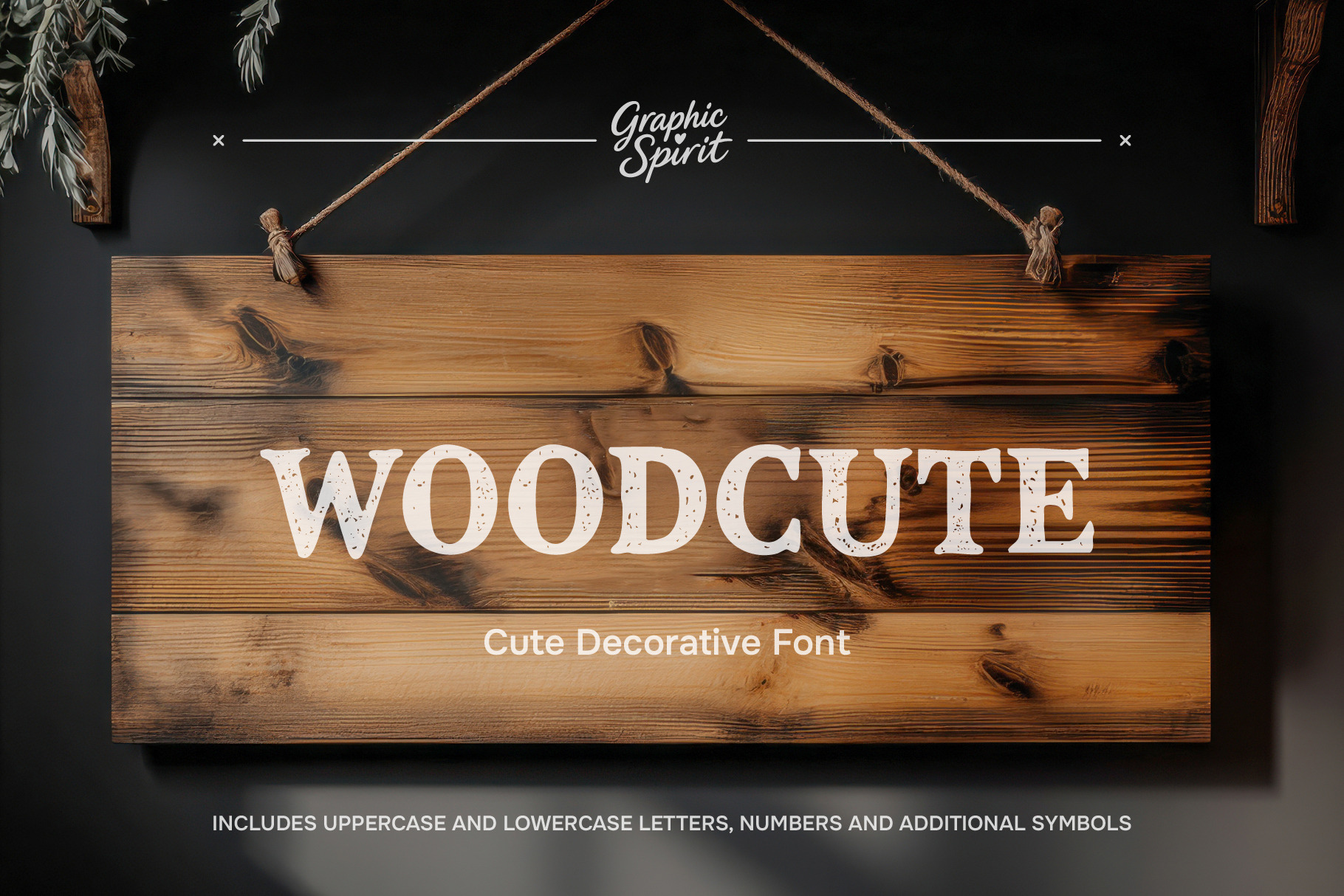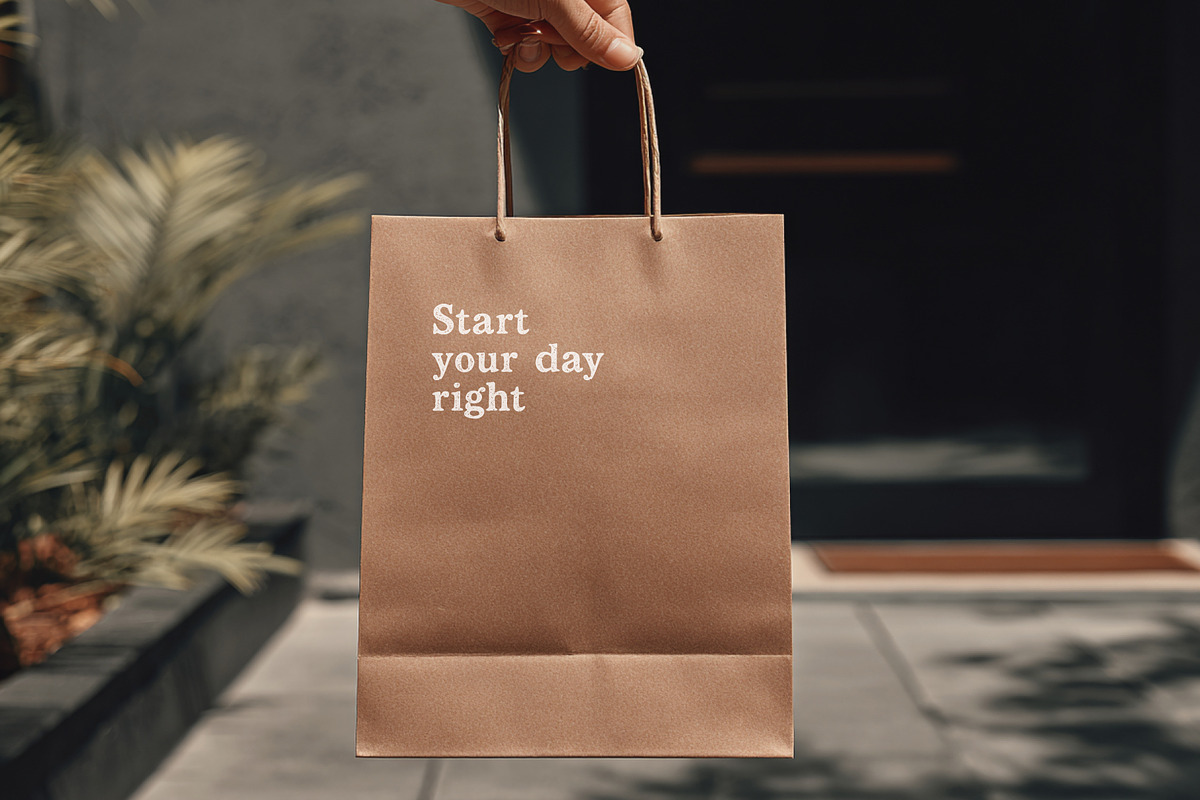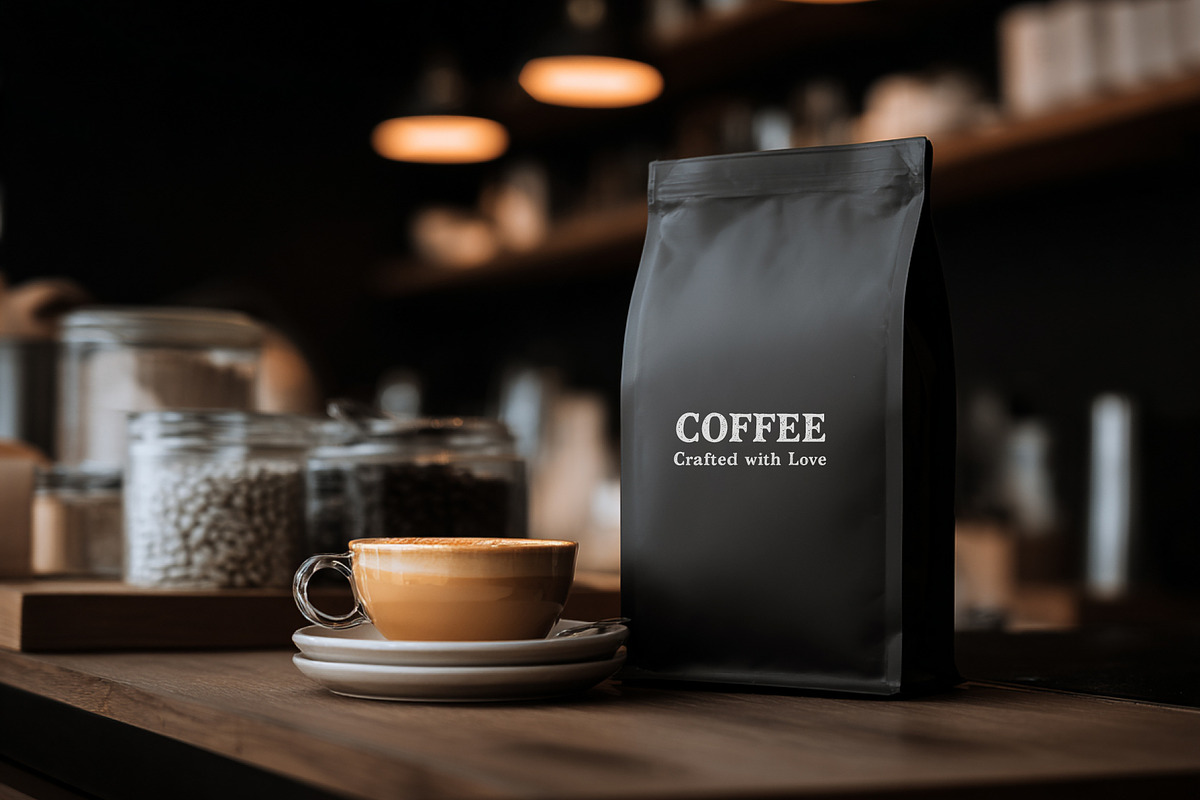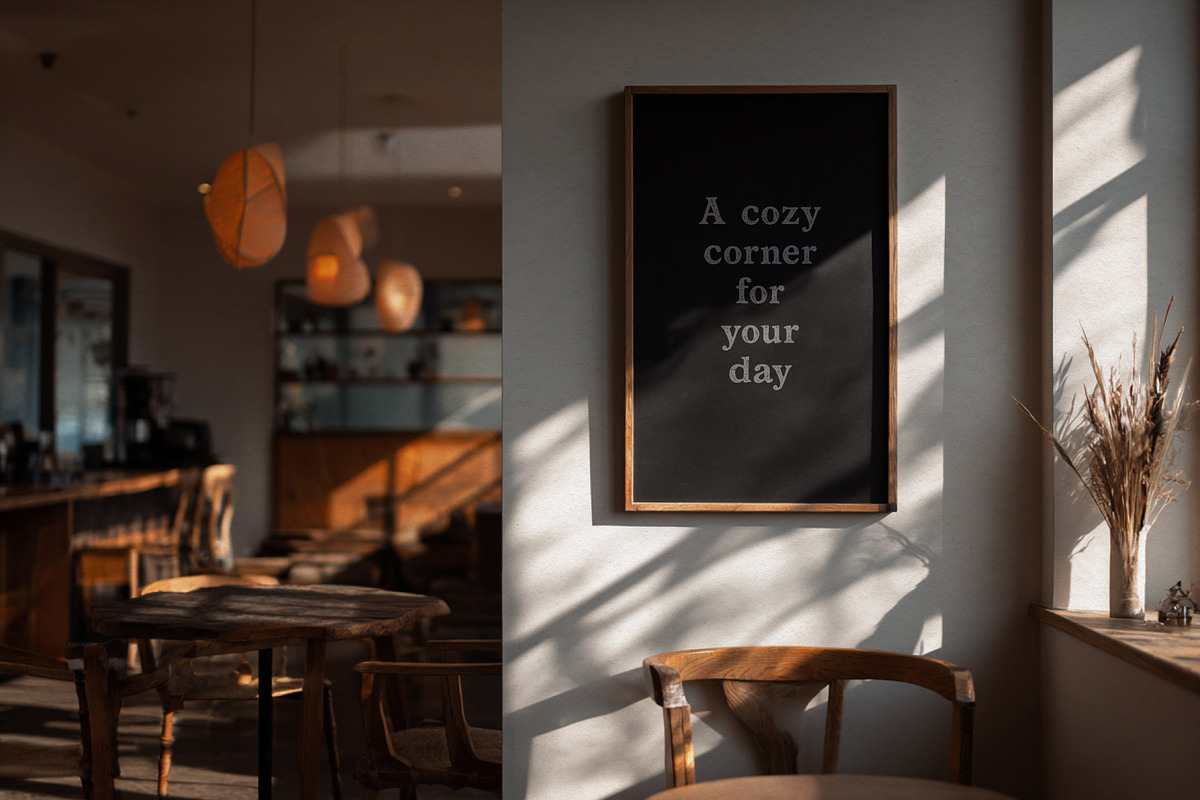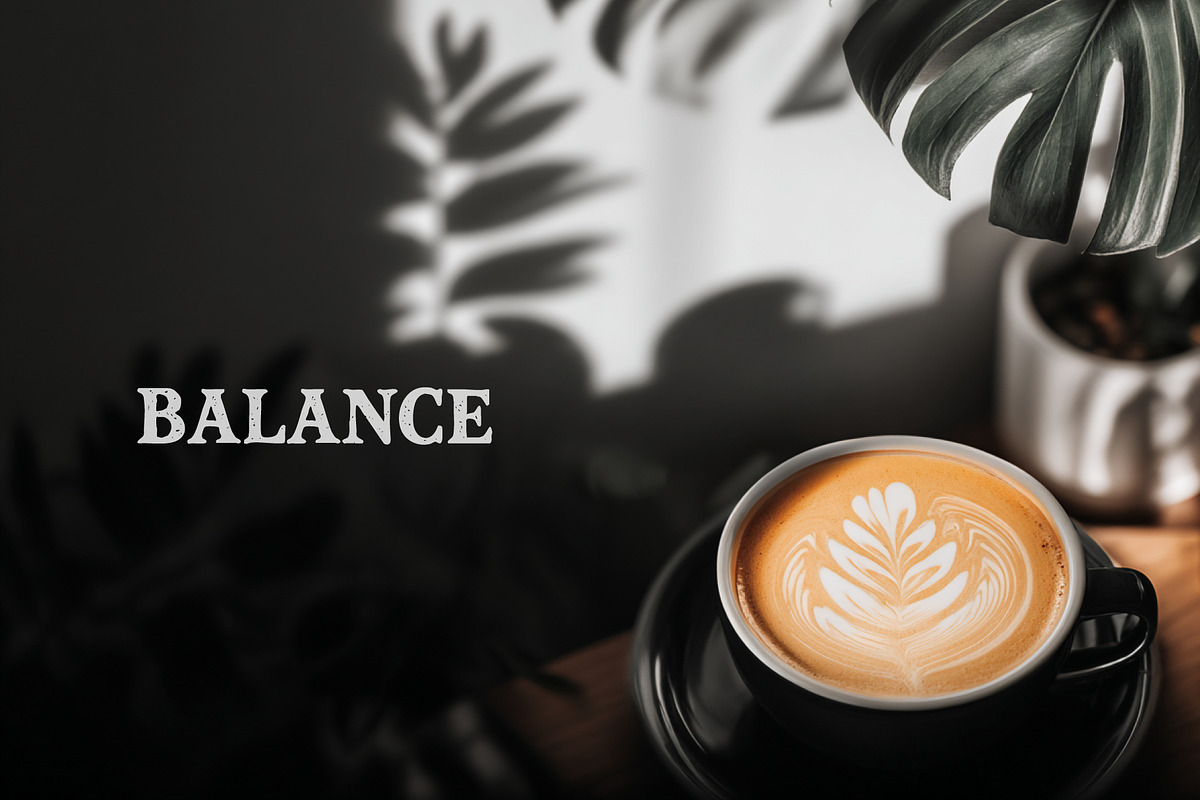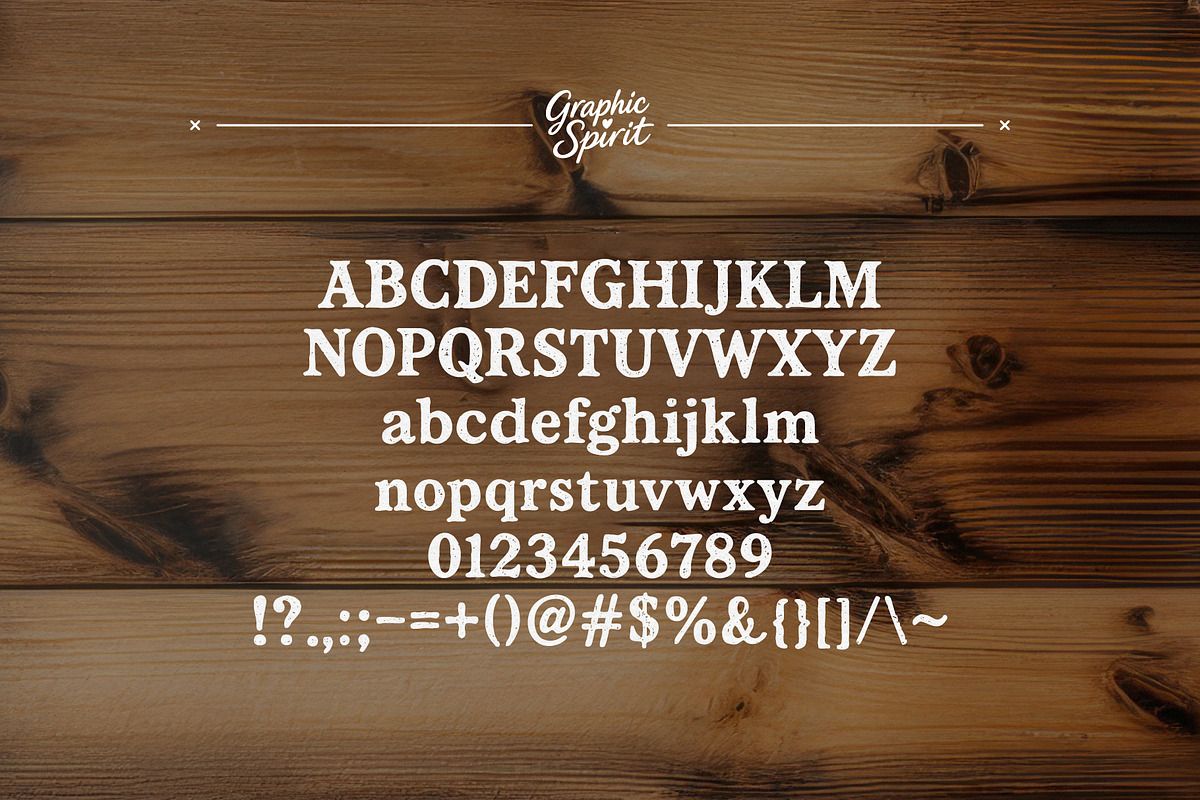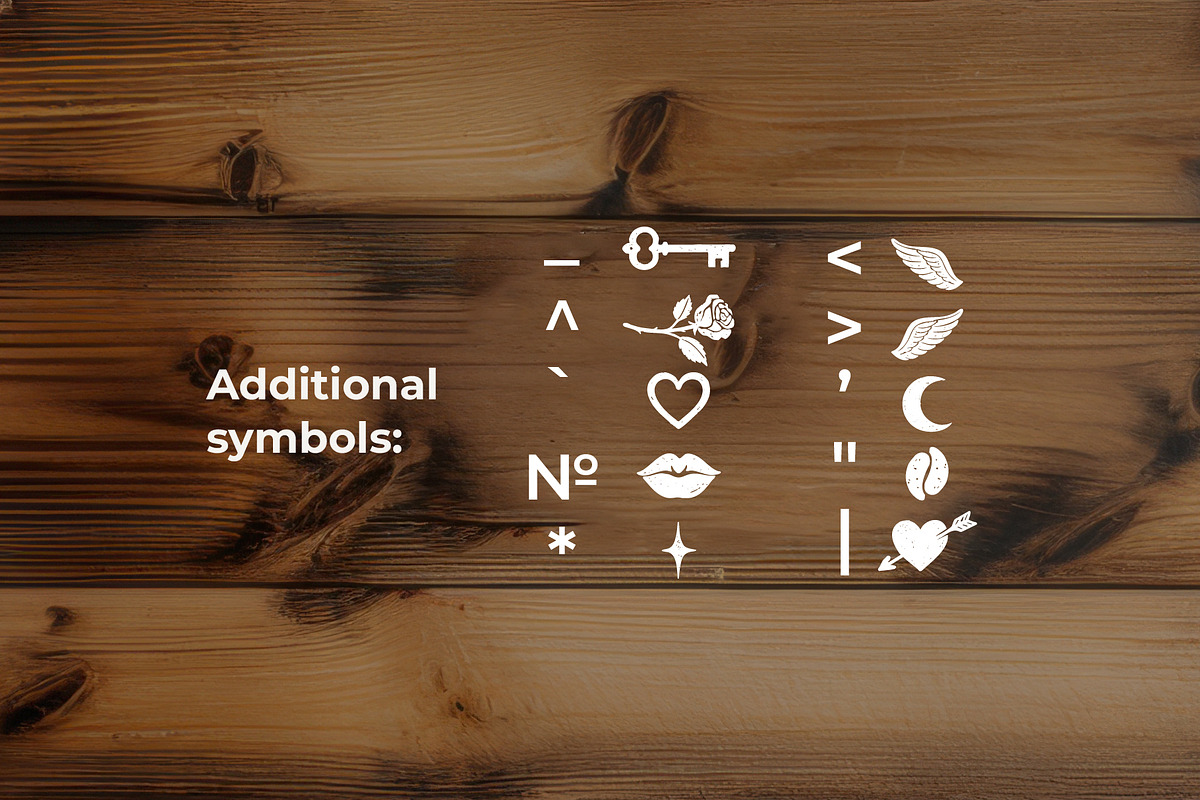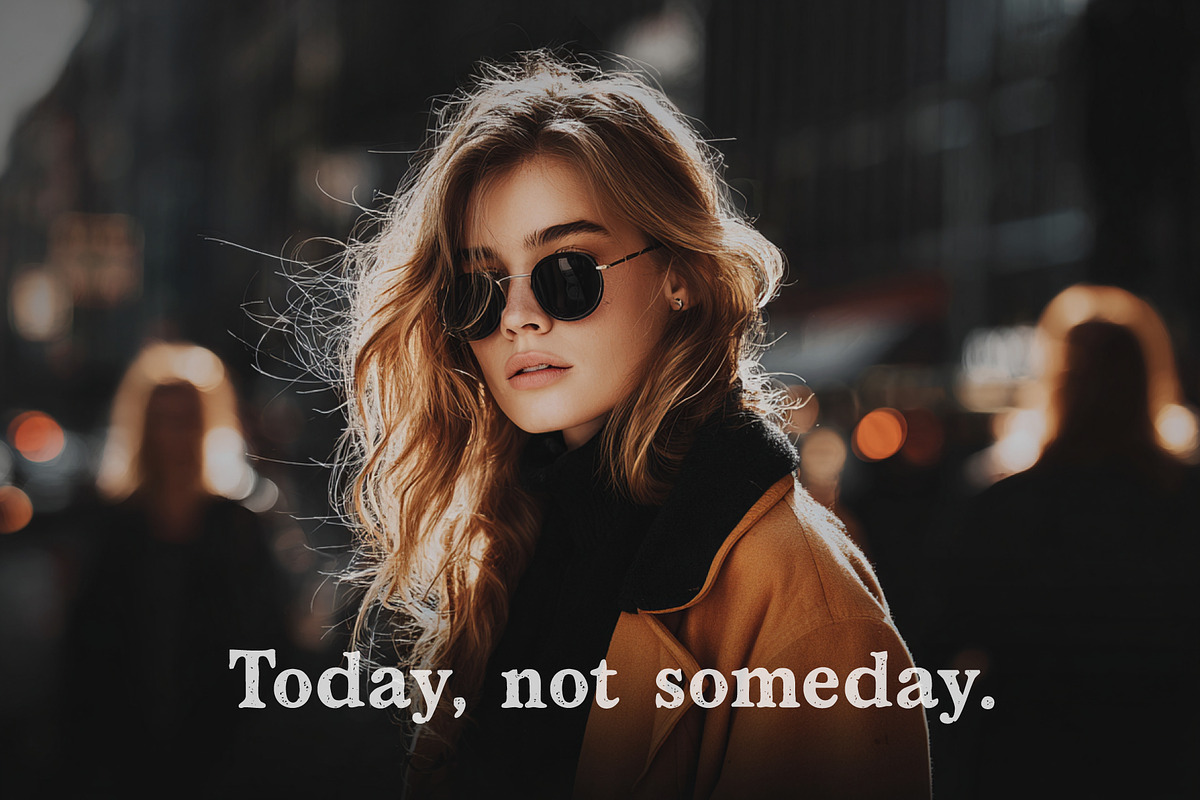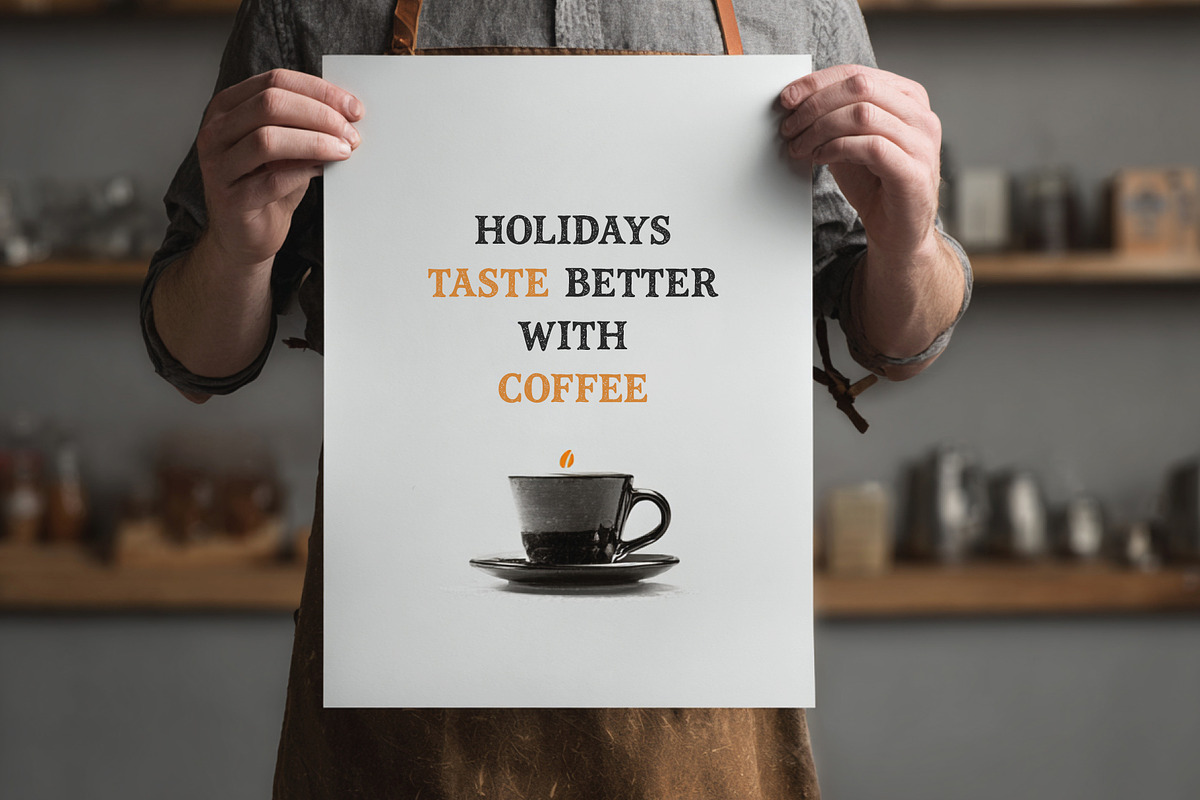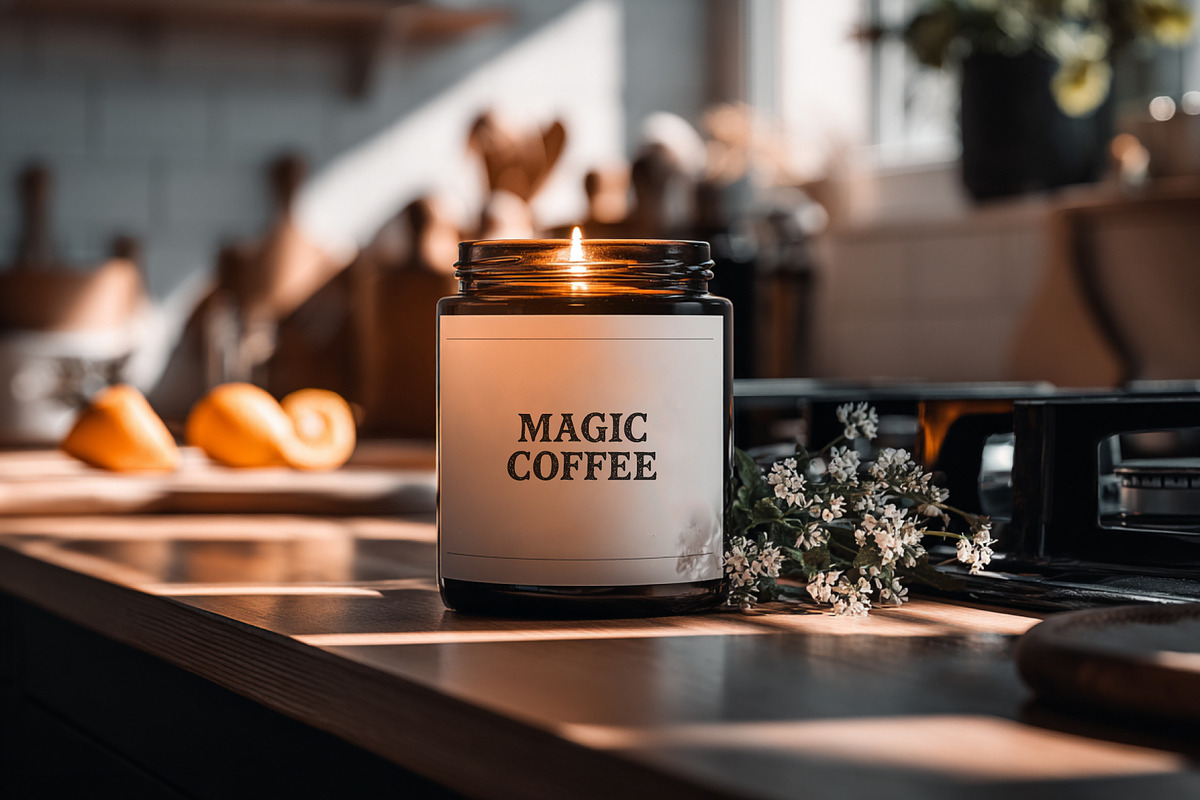
Woodcute Cute Decorative Font
"Woodcute Cute Decorative Font - Digital Download
Add a touch of whimsy and charm to your designs with the Woodcute Cute Decorative Font. This delightful digital download features a hand-drawn, rustic style that's perfect for children's projects, crafts, and more. The font includes uppercase and lowercase letters, numbers, and punctuation, making it versatile for a wide range of creative applications.
Whether you're designing invitations, greeting cards, or personalized gifts, the Woodcute Cute Decorative Font is sure to bring a smile to your face and warmth to your creations. Its playful, organic style is perfect for adding a homespun, heartfelt touch to any project. Download this digital font today and start spreading the joy of creativity!"